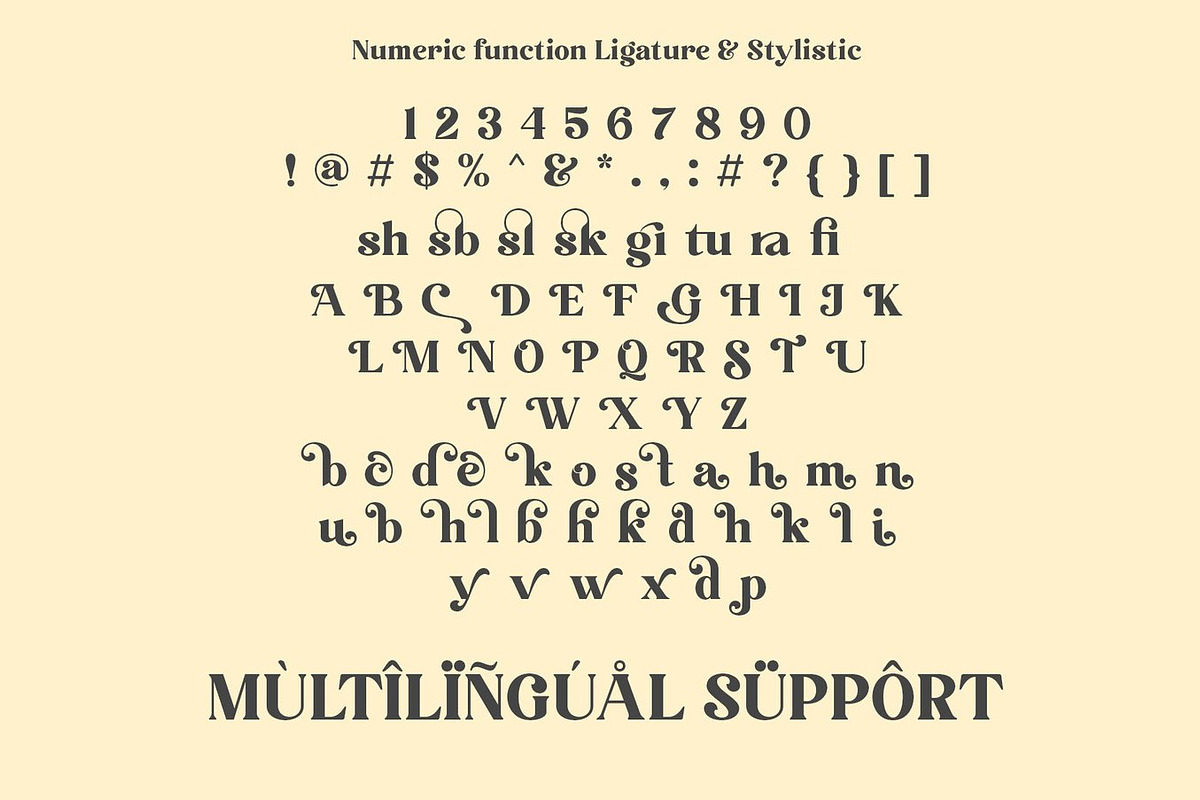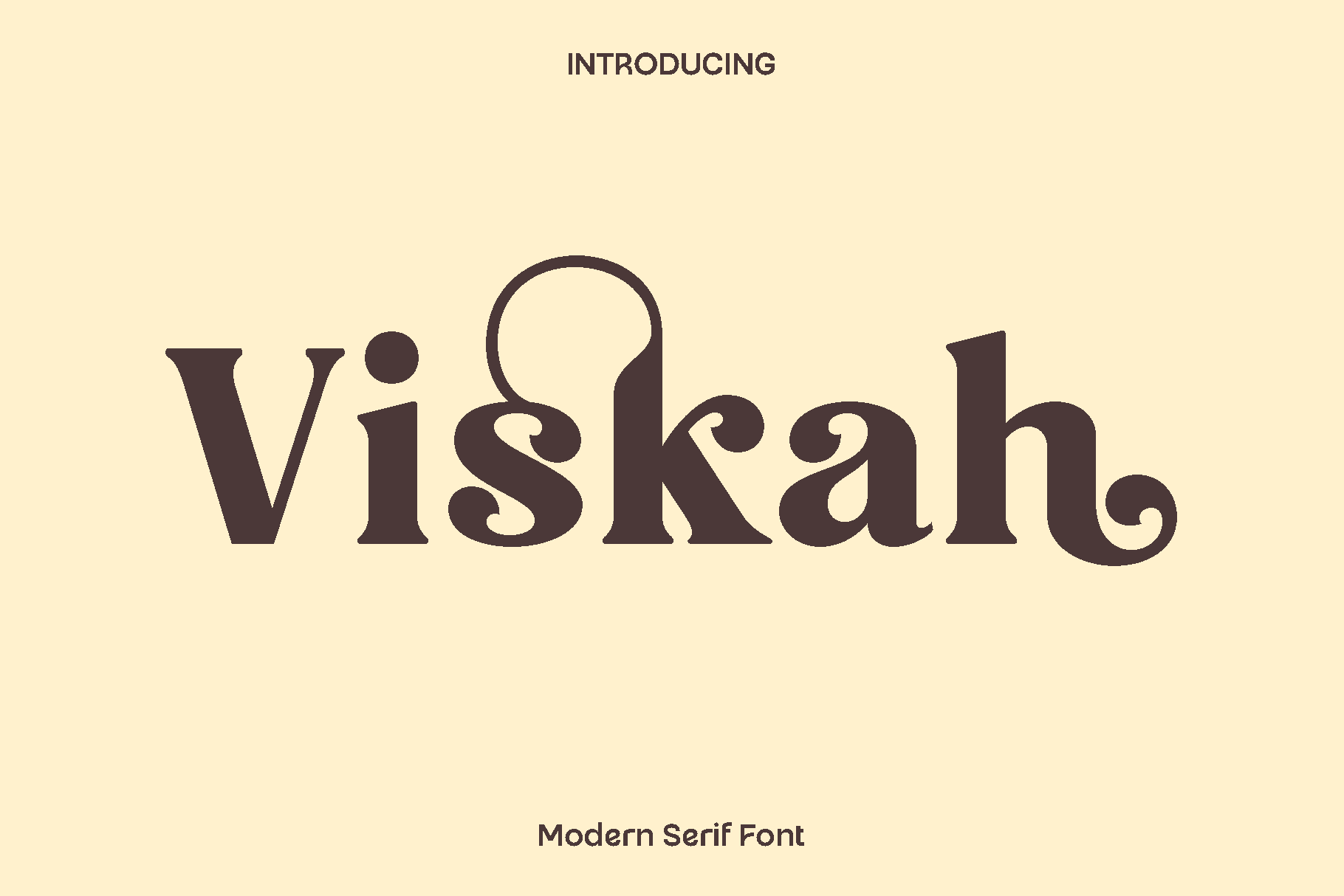
Viskah Modern Serif Font
Viskah is a refined sans display font designed with a graceful blend of classic beauty, feminine charm, and modern elegance. Inspired by timeless typography and delicate visual details, Viskah brings a soft yet confident personality to your designs. Its clean structure is enhanced by beautiful alternate characters that add a stylish and expressive touch, allowing every word to feel carefully crafted and full of character.
This font shines in projects that call for sophistication and warmth. Viskah is perfect for logos, branding identities, wedding invitations, stationery, social media posts, advertising visuals, printed quotes, product packaging, labels, and photography watermarks. Its elegant presence also makes it ideal for special event designs and feminine themed creative work where style and refinement are essential.
Viskah feels graceful, polished, and inviting. The balance between classic inspiration and contemporary styling ensures it works beautifully across both print and digital applications. Designers can easily create eye catching headlines or charming details thanks to its versatile alternates and ligatures that enhance visual flow.
Carefully crafted for creators who value elegance and personality, Viskah helps transform simple text into a stylish visual statement that leaves a memorable impression.
Viskah Font Features:
• Uppercase and lowercase characters
• Numerals and functional punctuation
• Stylistic alternates
• Ligatures
• Multilingual support
• OpenType features